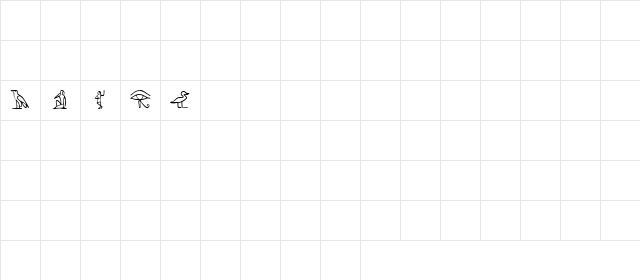
Nahkt (Unregistered) Regular Font Preview
Nahkt (Unregistered) Regular
Nahkt (Unregistered) Regular Font Details
Design Context for Nahkt (Unregistered) Typeface
Nahkt (Unregistered) is a composed and adaptable typeface that performs quietly and consistently across a wide range of design contexts.